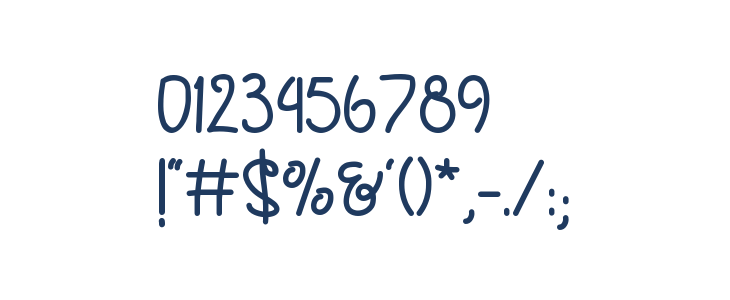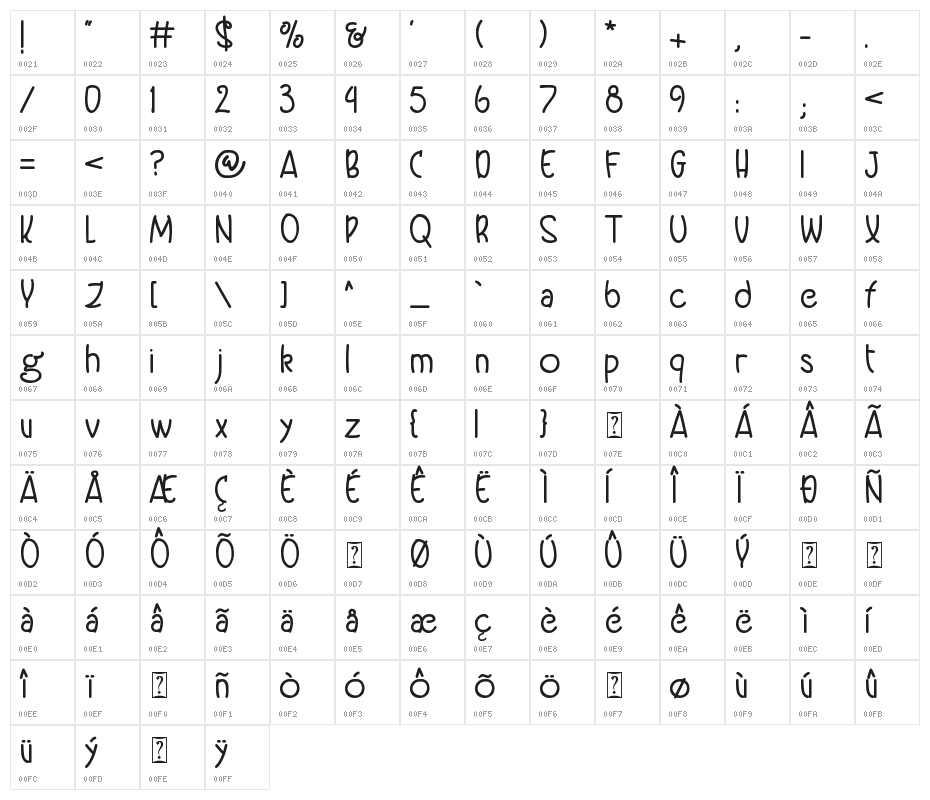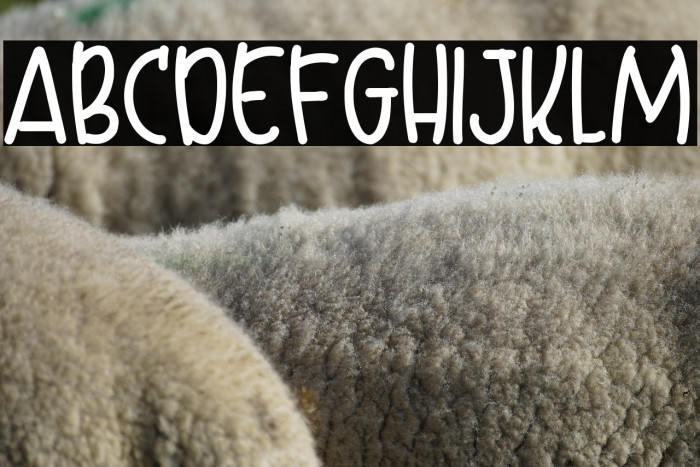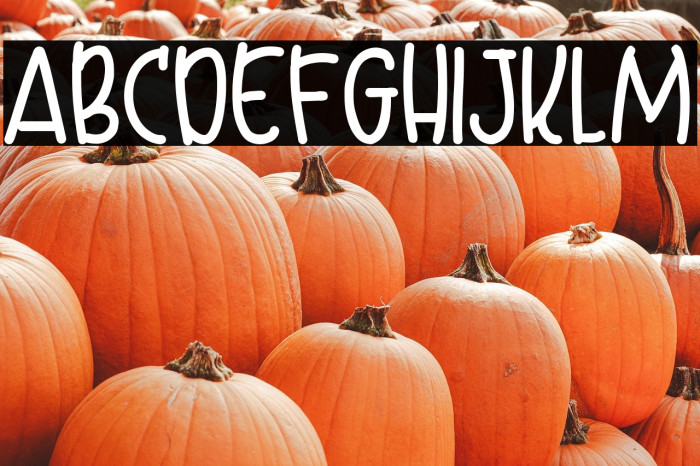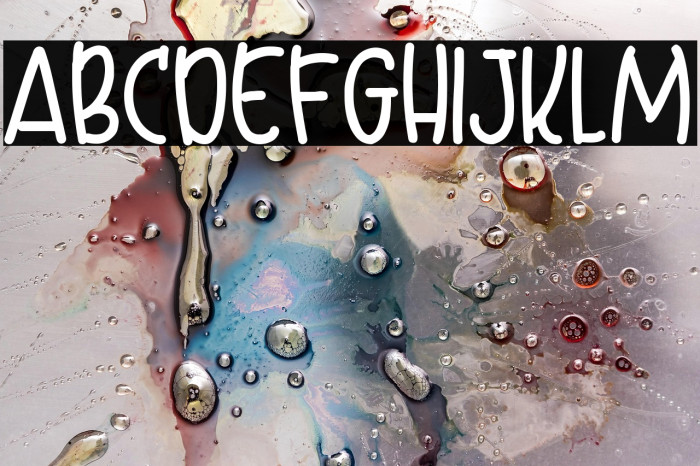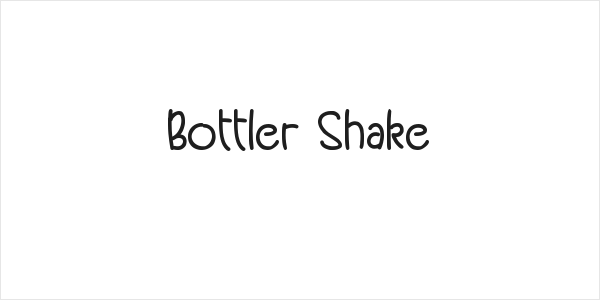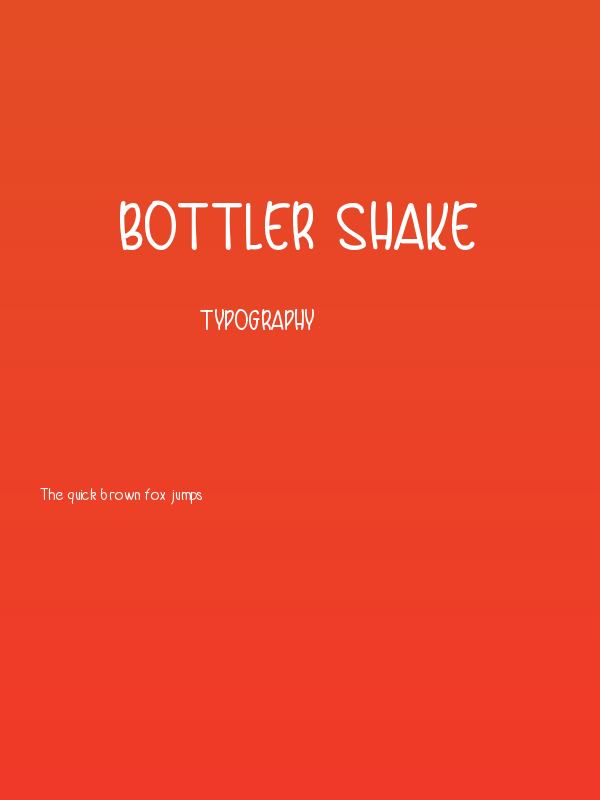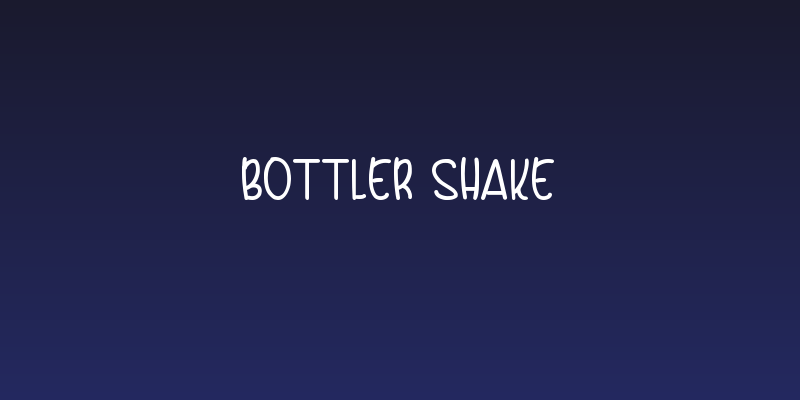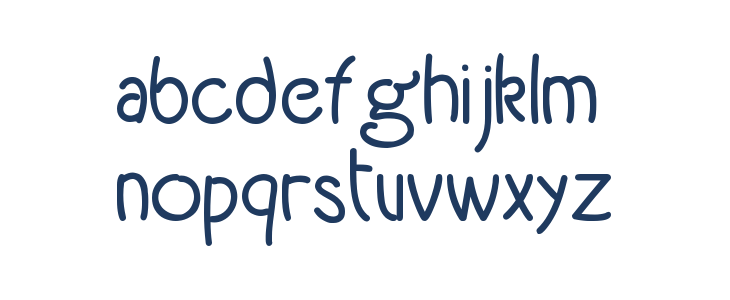
Bottler Shake Font
Bottler Shake Description
This playful and whimsical font features rounded, smooth strokes that give it a friendly and approachable appearance. The letters are slightly irregular, adding a hand-drawn feel that enhances its casual and informal style. The uppercase and lowercase characters maintain a consistent height, while the numerals and special characters integrate seamlessly with the overall design. The font's unique personality makes it suitable for creative and fun projects, where a touch of individuality is desired.
| Proposed Projects | Ideal for children's books, greeting cards, playful branding, and casual invitations. |